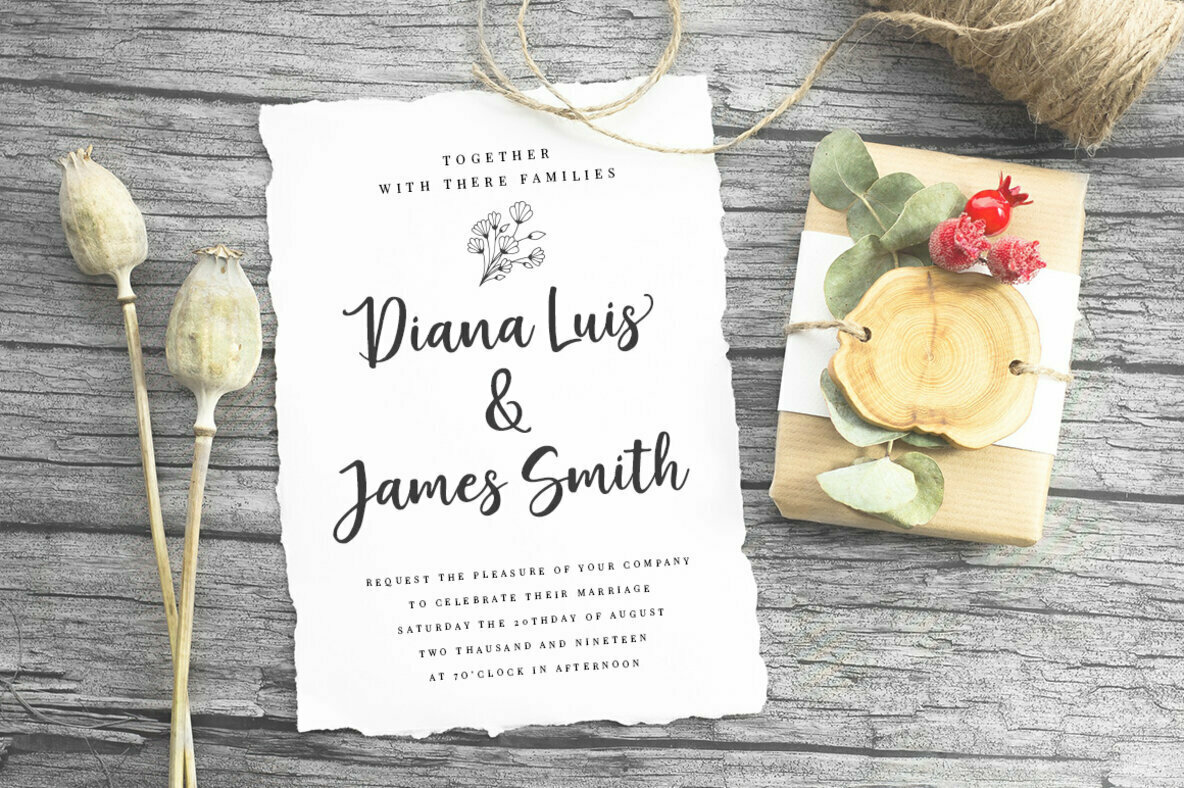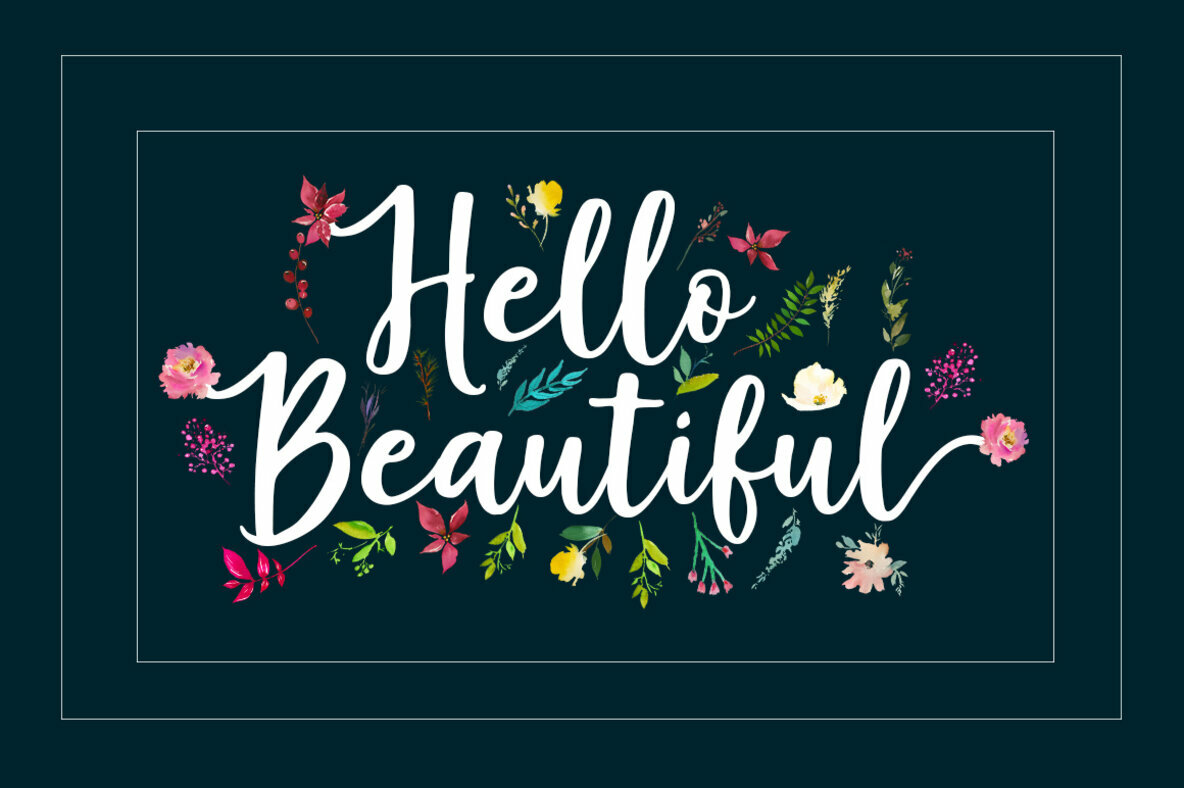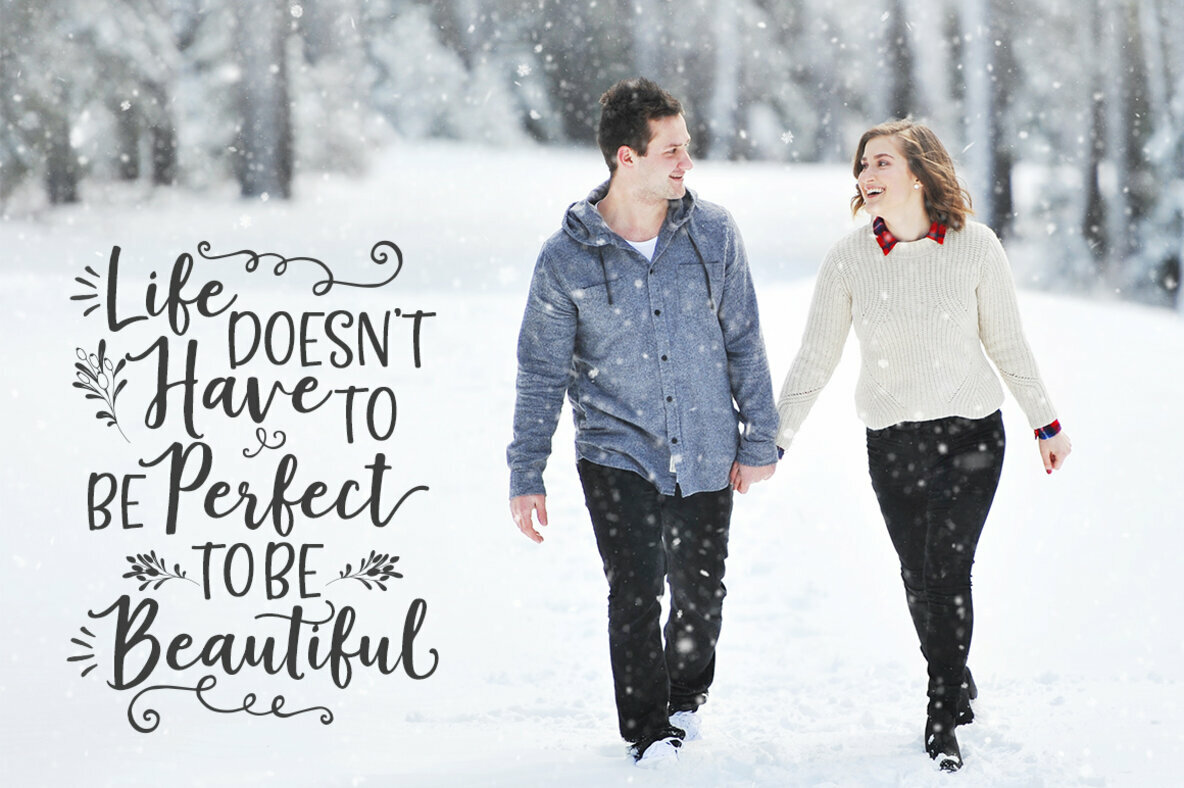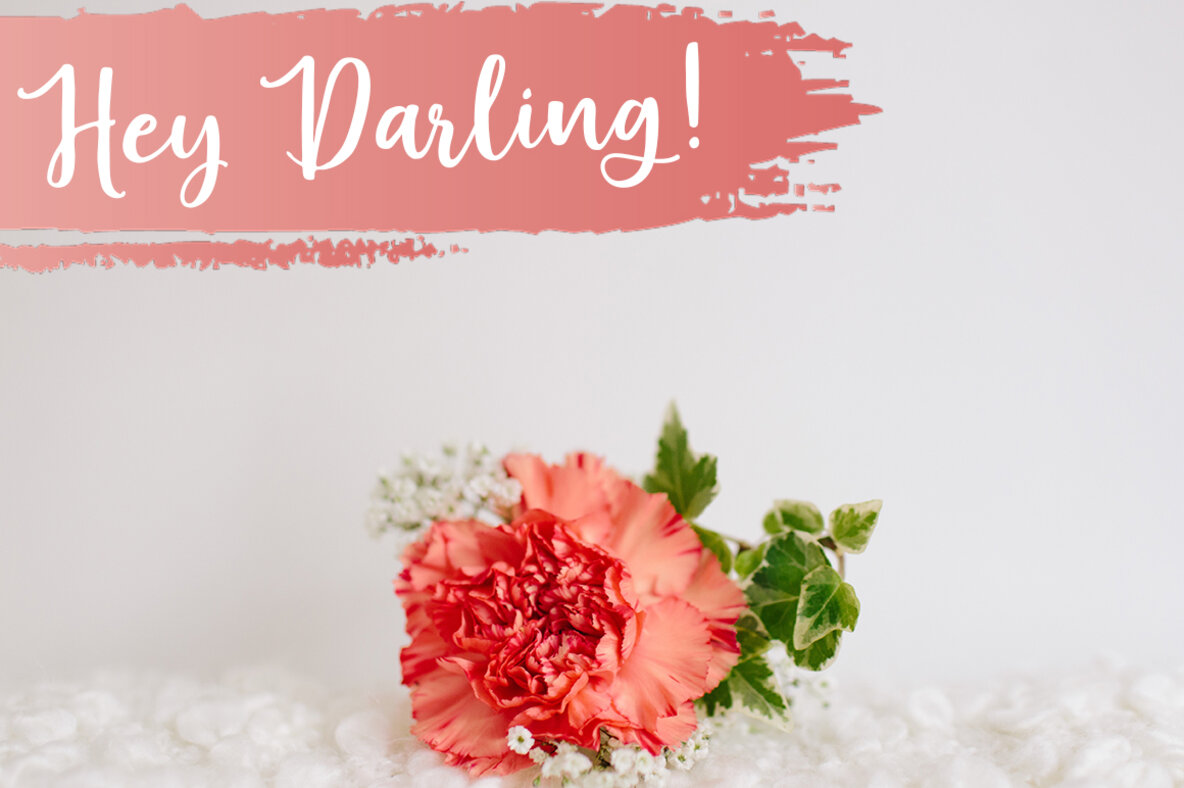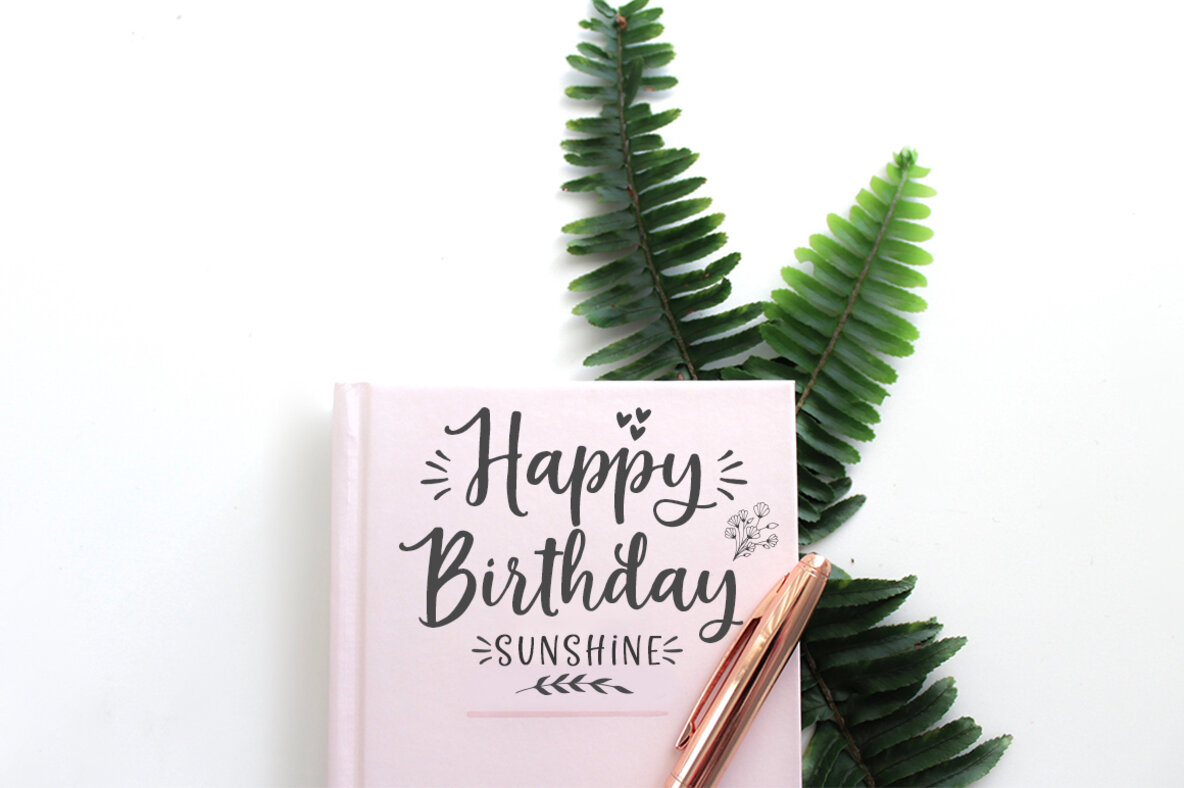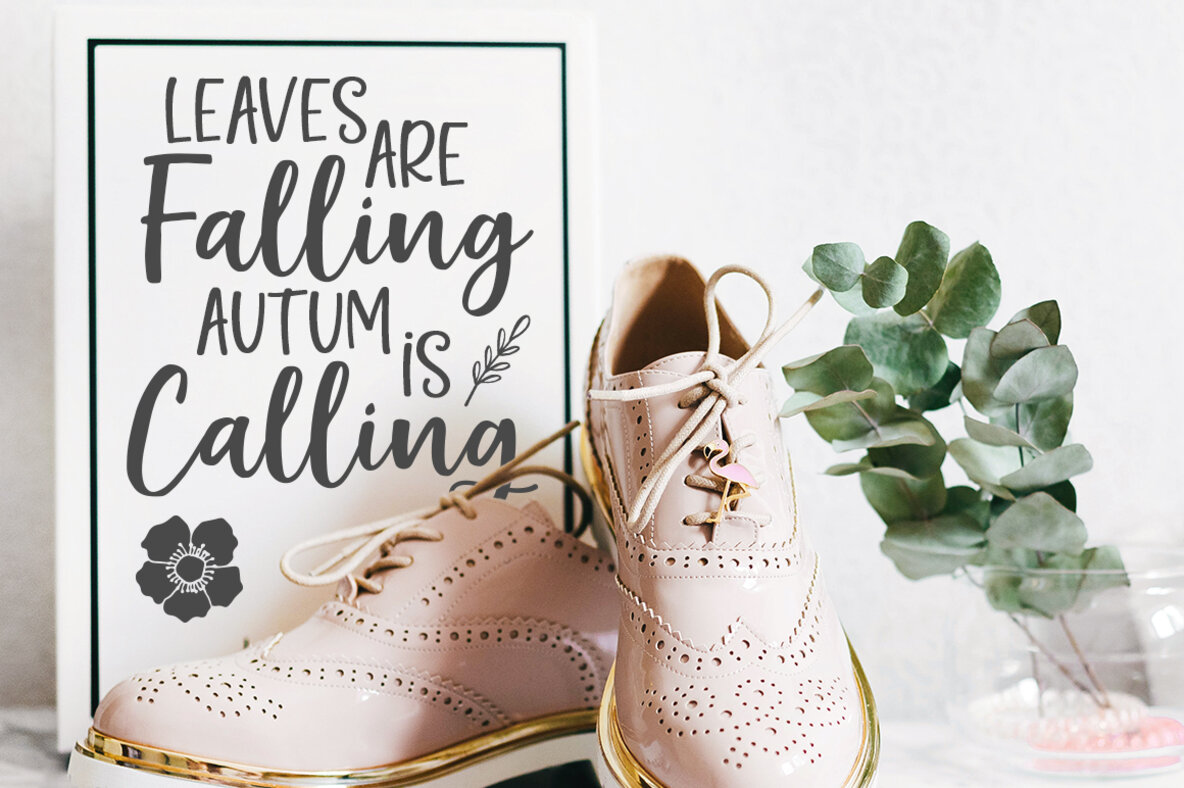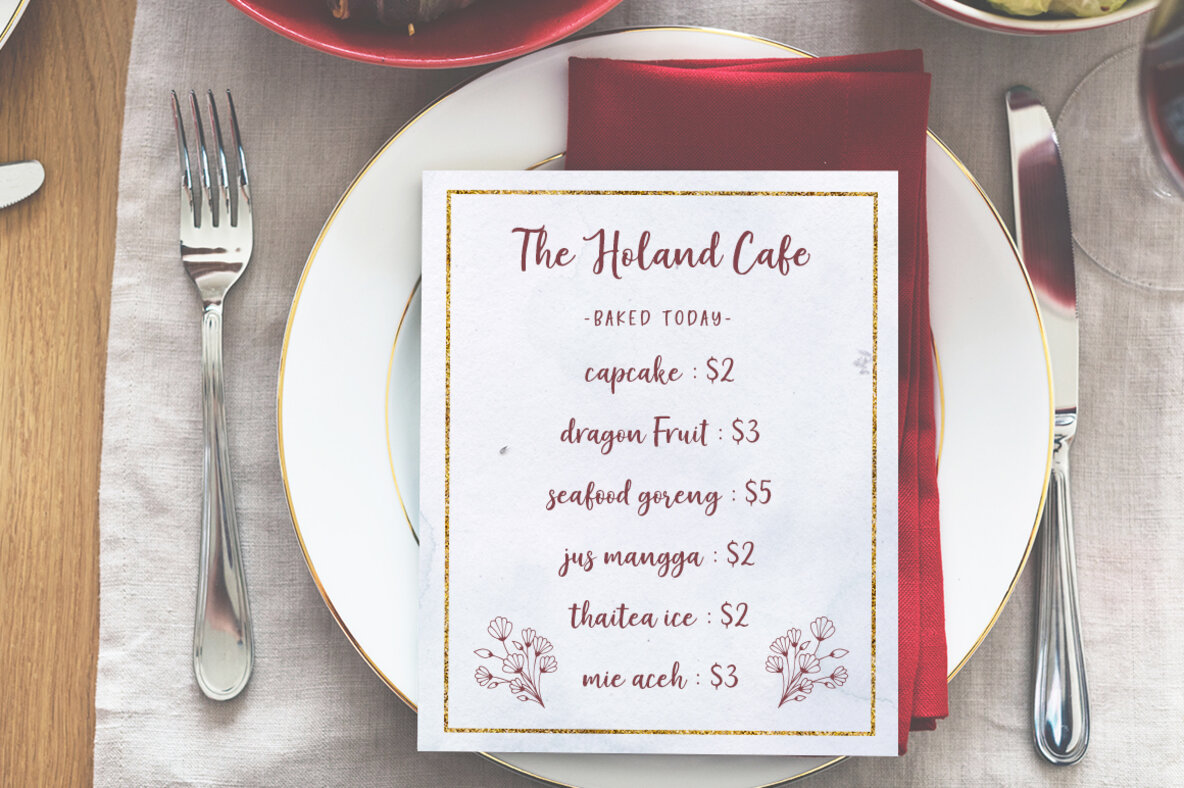
Lucky Diamond Script
The Lucky Diamond Script captures the essence of modern handwriting with its decorative characters and dynamic baseline. Ideal for a wide range of applications, this script font adds a personalized touch to projects such as blog headers, branding, t-shirts, weddings, social media, product designs, and much more. Features:Lucky Diamond Script: A Handwritten Script for Versatile Designs